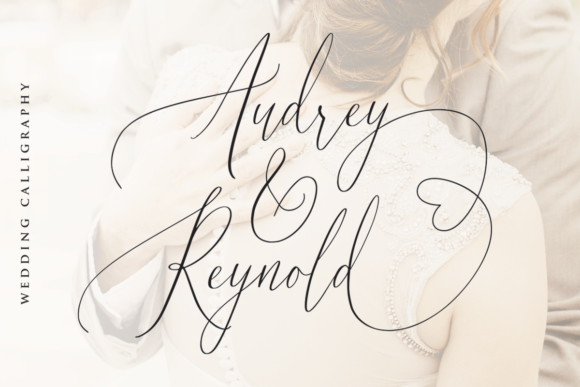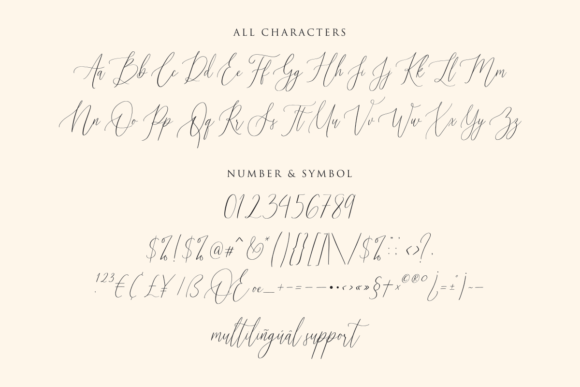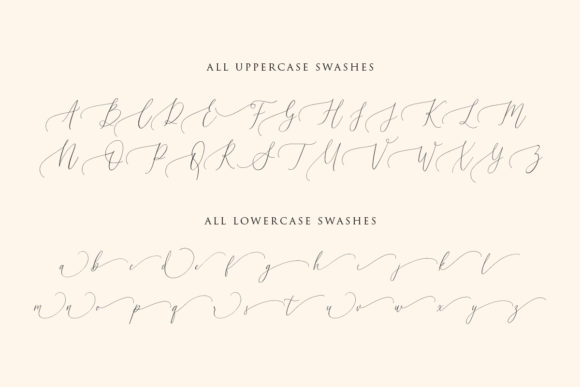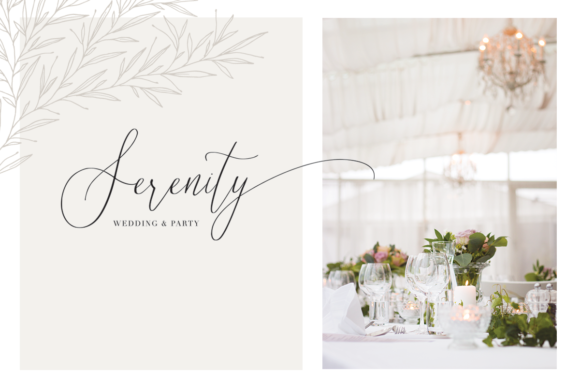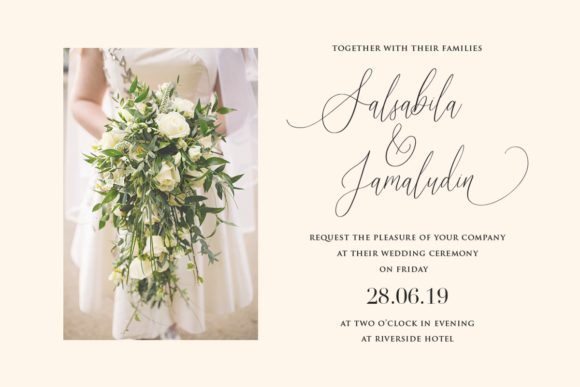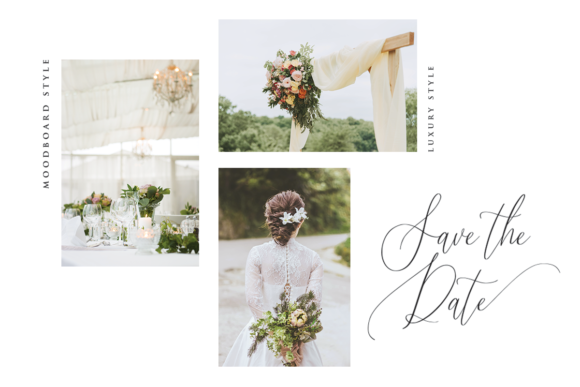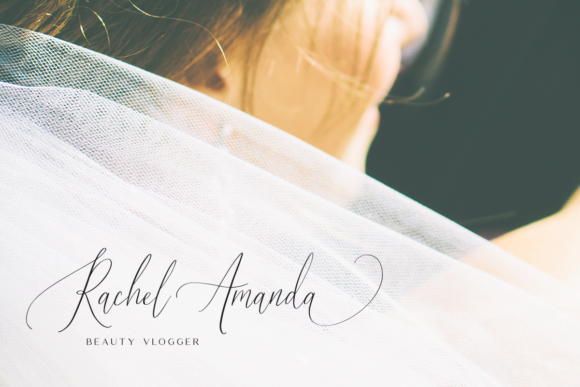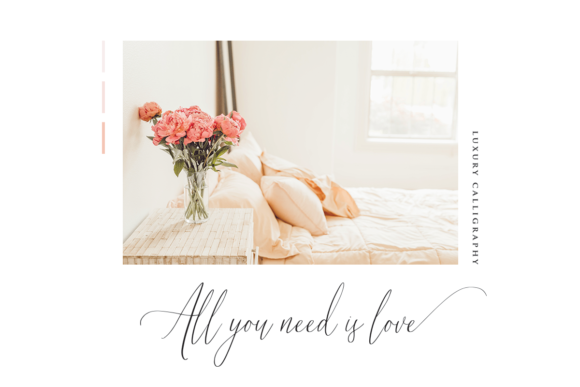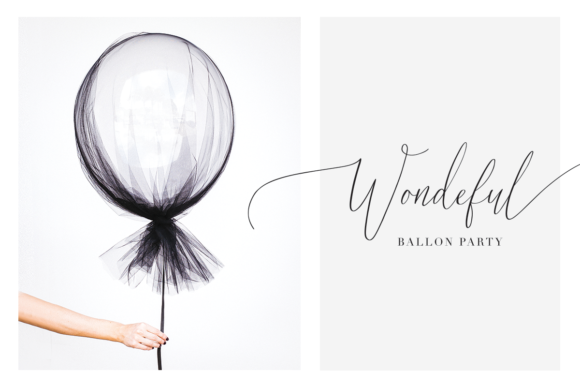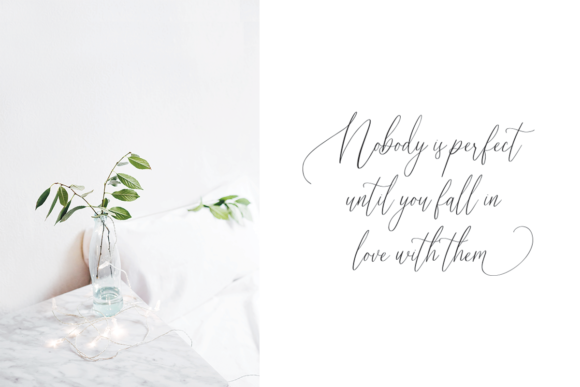
Audrey & Reynold Font
About Audrey & Reynold Font
Audrey & Reynold is an extremely romantic and stunning handwritten font with bold swashes. Get inspired by its romantic aura.